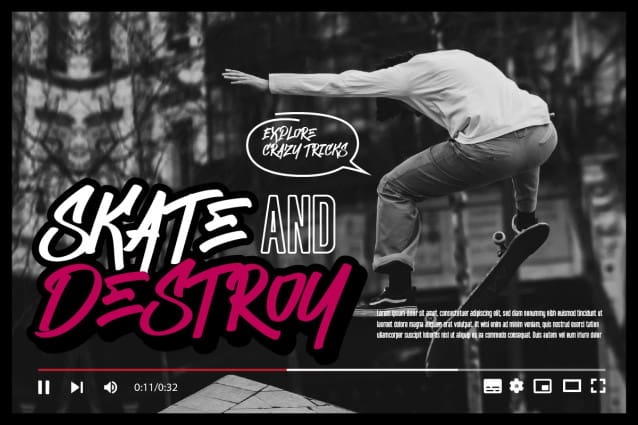
Echoed Vandalism Font
Echoed Vandalism Font is an urban street graffiti font that combines bold, dynamic, and energetic characteristics typical of street art. With 240 glyphs including uppercase, lowercase, numbers, ligatures, punctuation, alternates, swashes, and multilingual support, this font offers high versatility for various design projects. Perfect for branding, posters, album covers, or digital content, Echoed Vandalism delivers an authentic and daring touch that embodies the spirit of modern art and creative freedom.